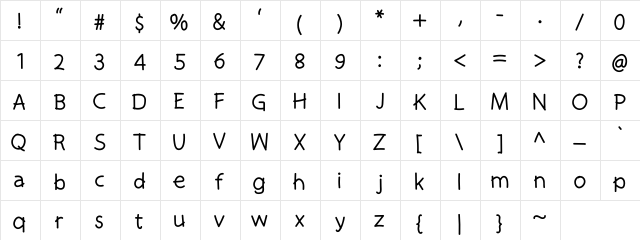
melunasi Regular
Design Context for melunasi Typeface
melunasi offers clean, dependable letterforms without strong stylistic allegiance, making it a practical choice for designers who need flexibility.